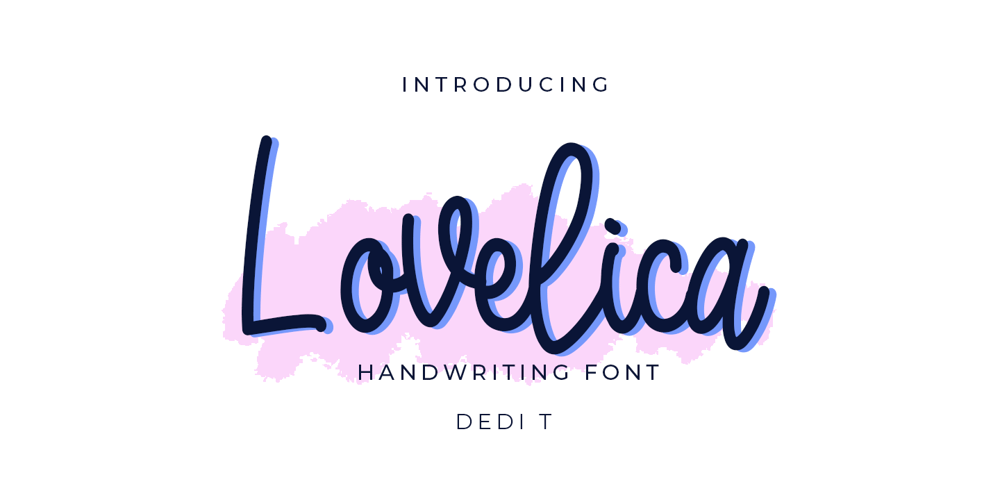
Lovelica Font Family was designed by Dedi Tri Anggara and published by PandAE86. Lovelica contains 1 styles and family package options. Lovelica is a magical handwritten font carefully created with a touch of elegance. It will elevate a wide range of design projects to the highest level, be it branding, headings, wedding designs, invitations, signatures, logos, labels, and much more! Uppercase Lowercase Numeral Punctuation Ligatures Multilingual characters support Thank you and have a nice day !Dedi T A